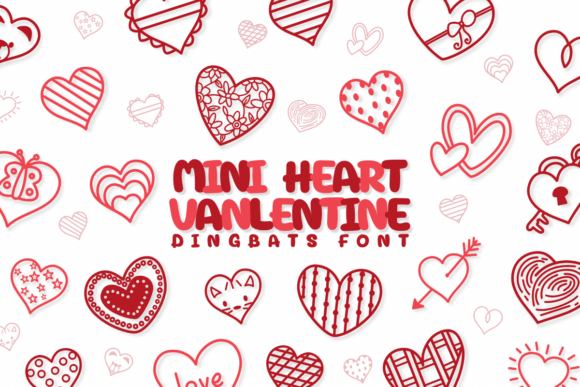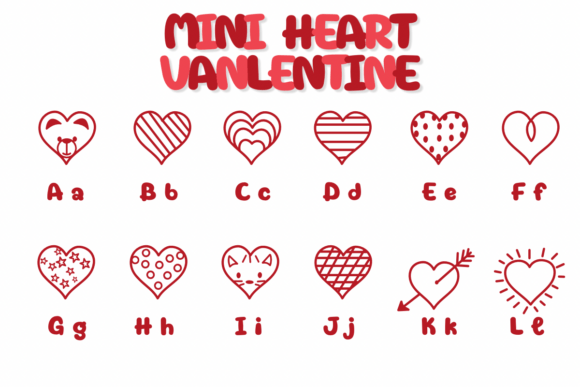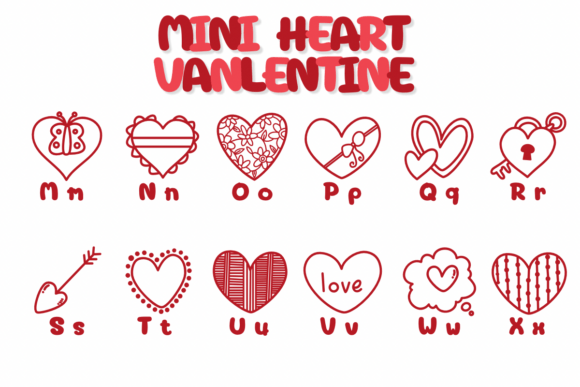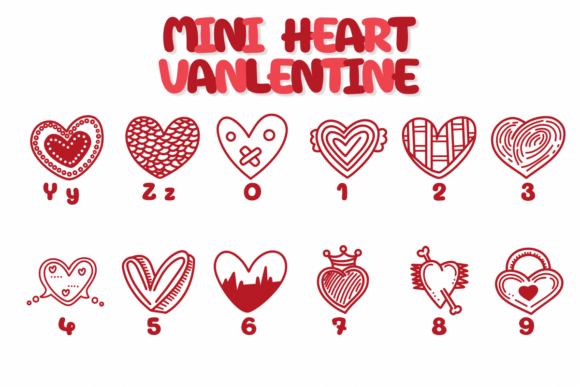
Mini Heart Valentine Font
About the Mini Heart Valentine Font
Elevate your designs with Mini Heart Valentine Font, a font that combines sophistication with readability. Mini Heart Valentine is a dingbats font with a romantic theme. This font can enhance your creative projects such as wedding invitations, DIY, crafts, decorations, logos, and many other creative ideas.
Its playful, charming aesthetic makes it ideal for projects requiring a touch of whimsical romance; think wedding stationery, branding for boutiques, or packaging for sweet treats. It excels in headlines, short phrases, and logos where its unique character can shine. However, its delicate nature makes it unsuitable for body text or UI elements where readability is paramount.
Pairing Mini Heart Valentine with a clean sans-serif like Lato or Open Sans provides a strong contrast, balancing its decorative style. For a more sophisticated feel, consider pairing it with a classic serif font such as Garamond or Playfair Display. Avoid pairing it with other highly decorative fonts to prevent visual clutter.
The overall personality is undeniably romantic and friendly, conveying warmth and affection. Its lighthearted nature lends itself well to brands focused on love, happiness, and handcrafted products.
Mini Heart Valentine Font Usage Examples
Mini Heart Valentine Font Example